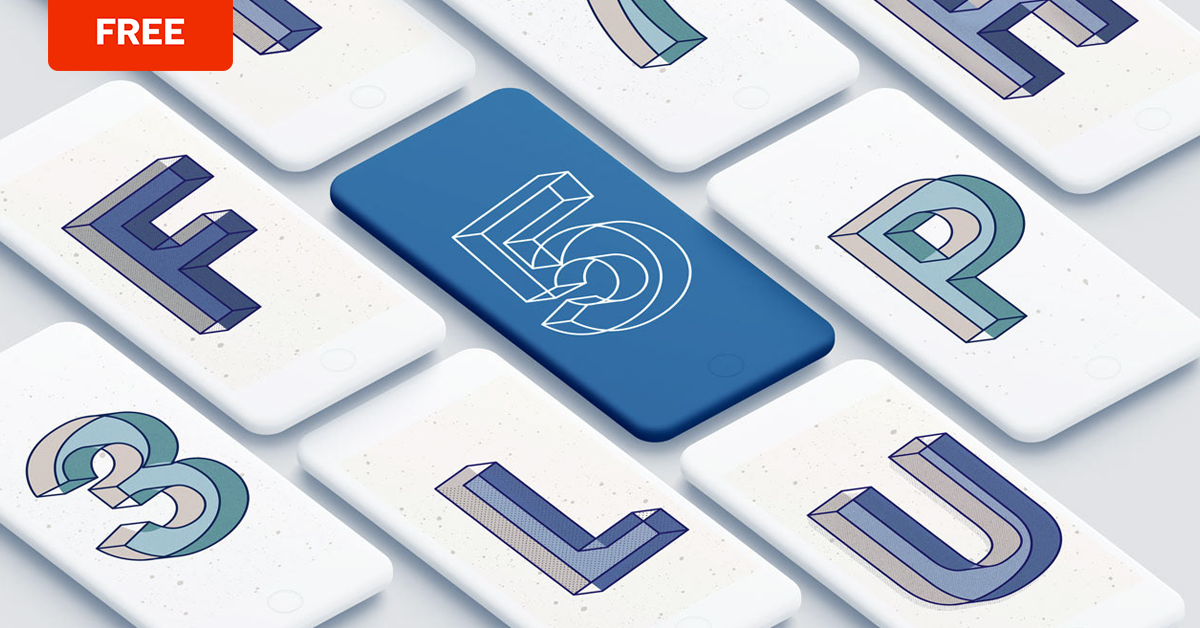
Download a Free Escher-inspired Typeface, by Manolo Guerrero
The Mexican designer has created a typeface from the alphabet he designed for 36 Days of Type and he’s sharing it for free
36 Days of Type–the challenge that invites graphic creators from around the world to design an alphabet, making one letter a day for over a month and publishing it on their Instagram profiles–is an incredible opportunity to get inspired and see how others approach the same brief in a completely different way, adapting it to their own styles and skills. It’s also the perfect breeding ground for projects like this typeface by Manolo Guerrero (@bluetypo), the Mexican graphic designer who heads Blue Typo who has shared it completely free for anyone who wants to use it.
It’s a completely experimental typeface with which Guerrero wanted to play with perspective, creating a design reminiscent of Escher’s most interesting work.
Guerrero used processing "to generate the extrusion of letters in different perspectives, in order to export vector files", a technique that he explains in his Domestika course Experimental Typographic Design with Processing, and that allowed him to merge the letter faces to create the effect of the alphabet’s perspectives.